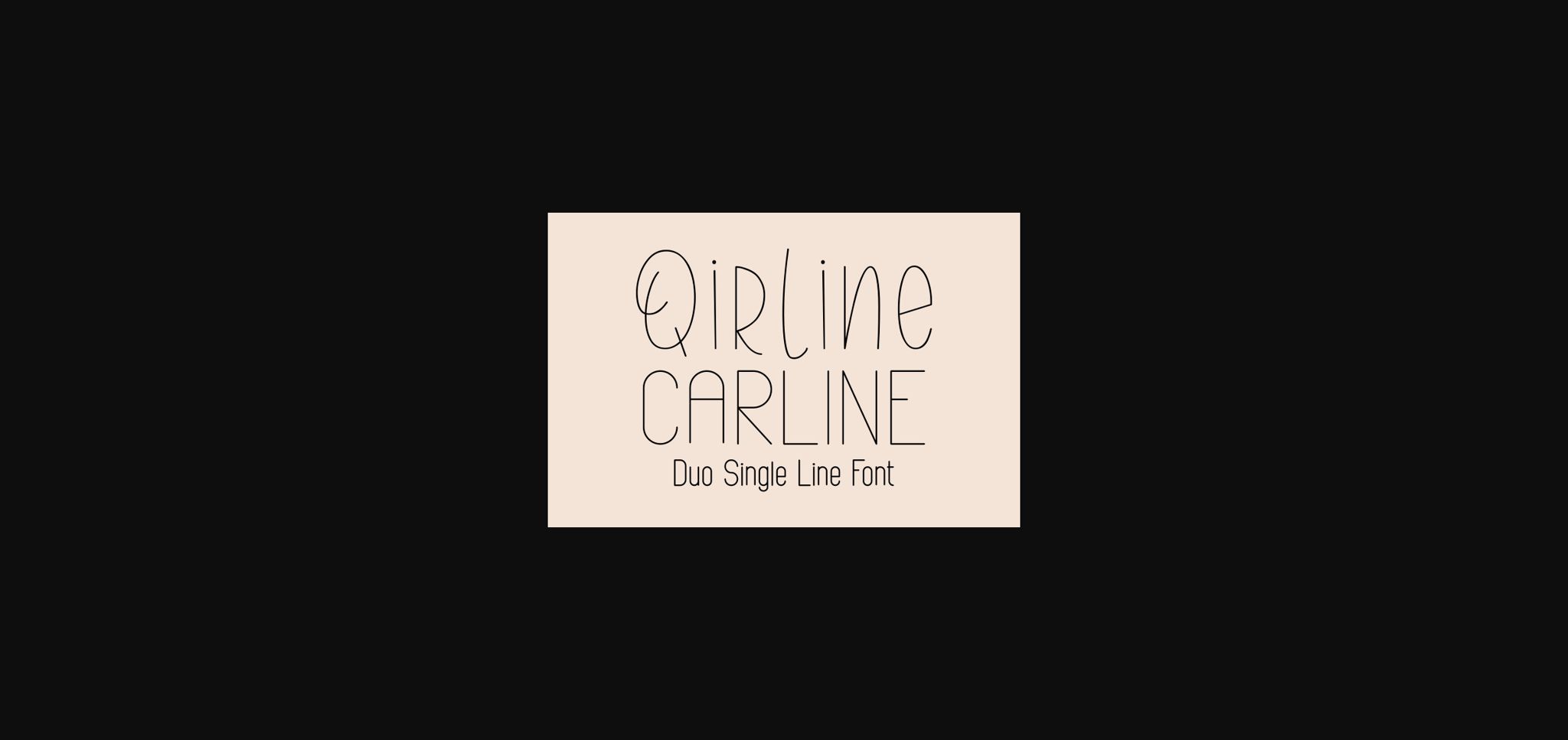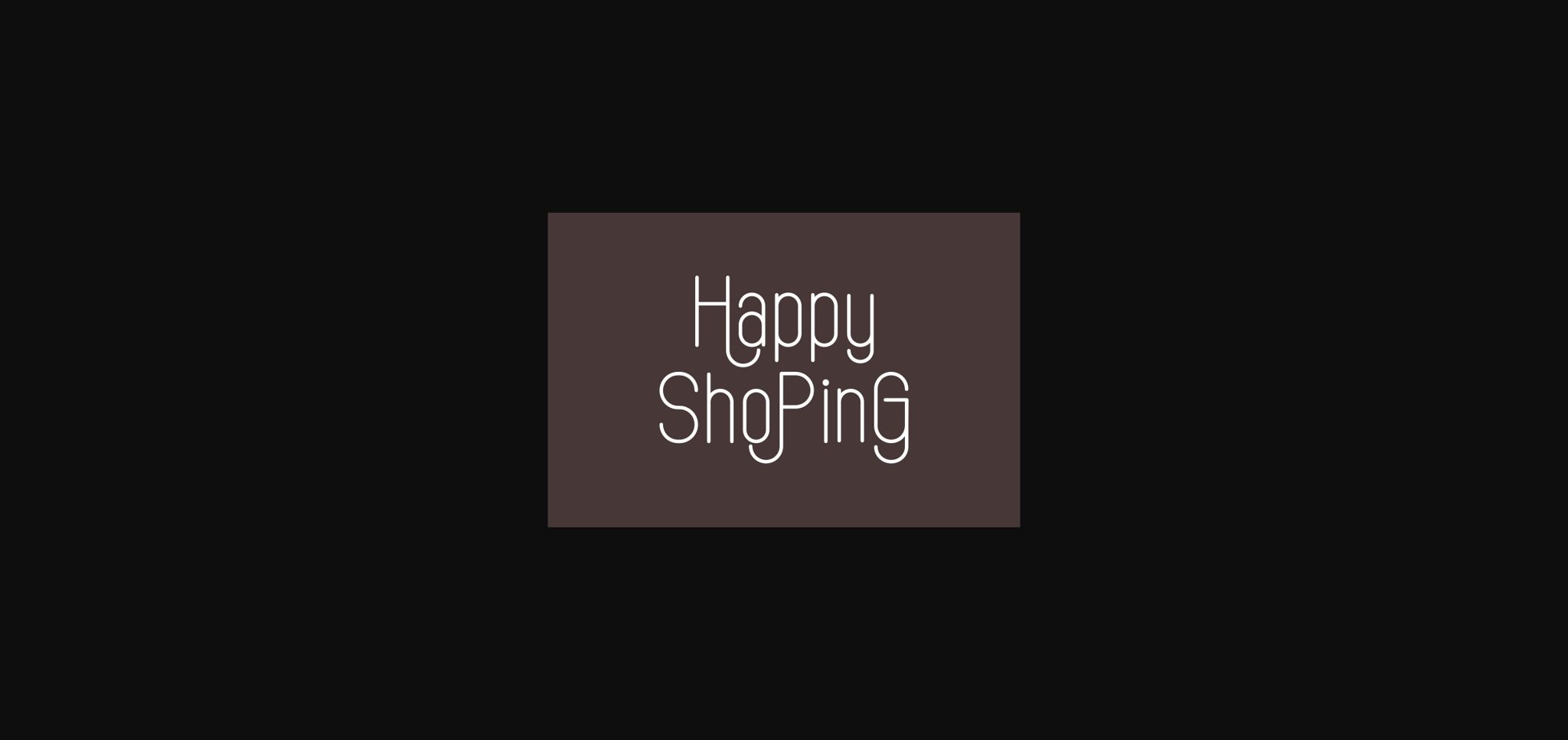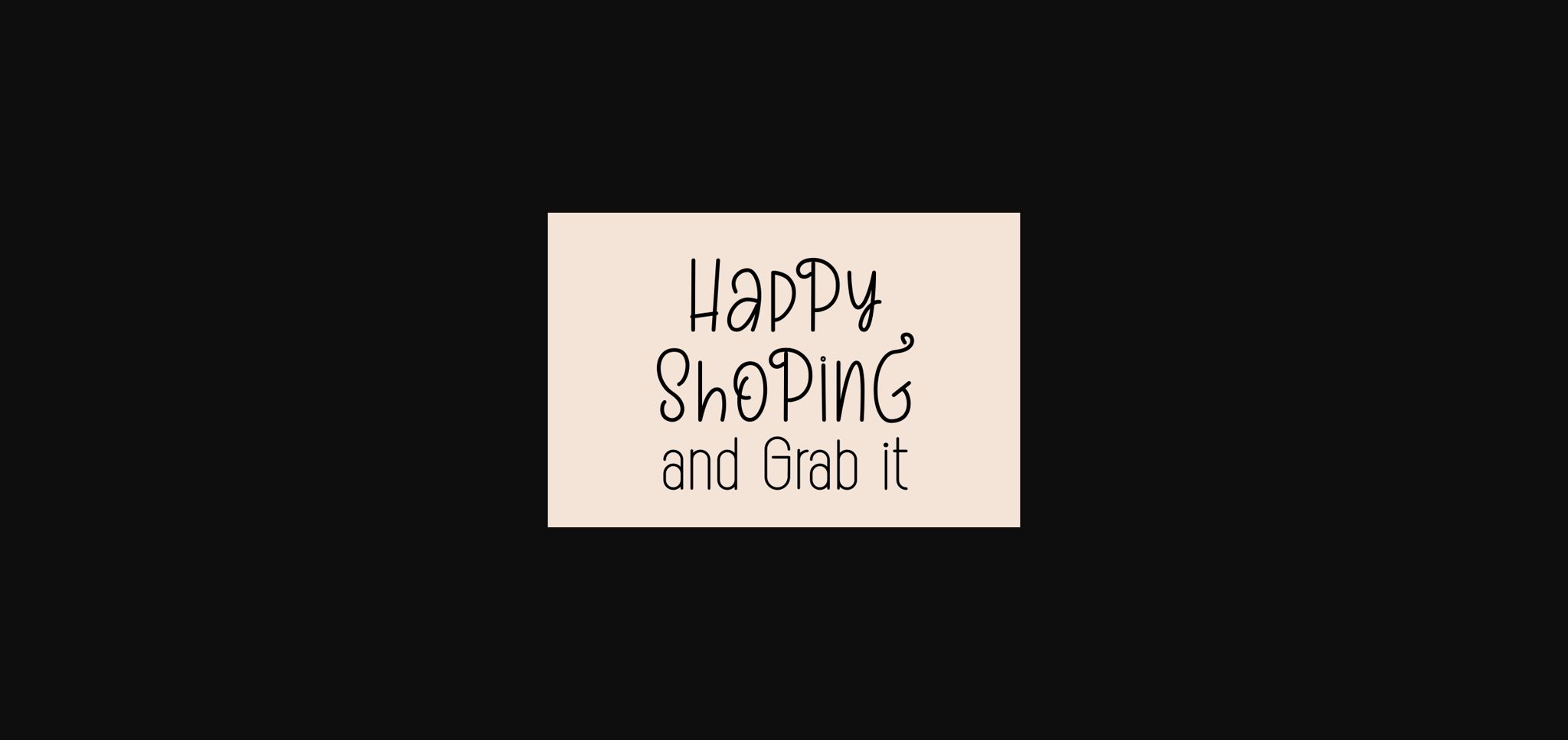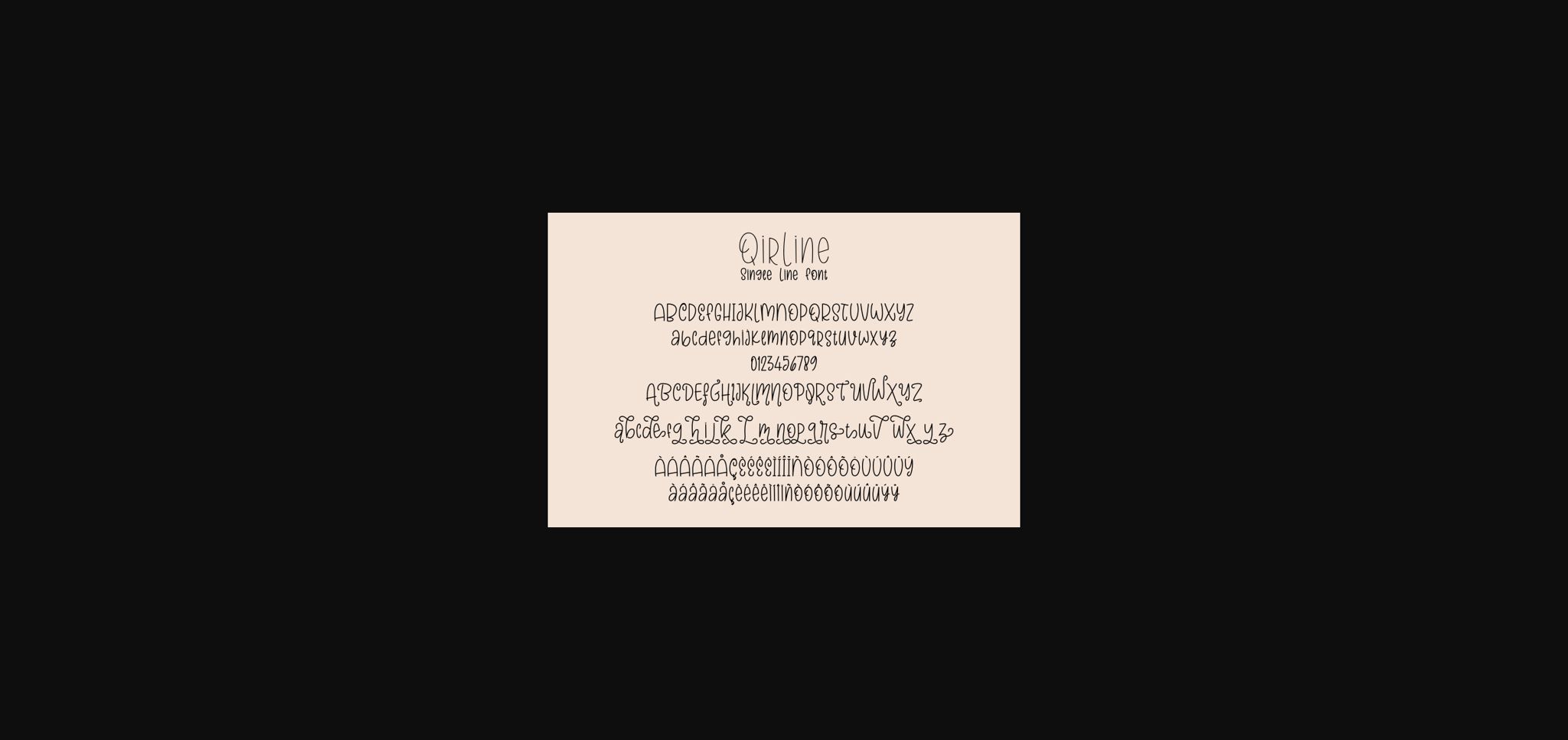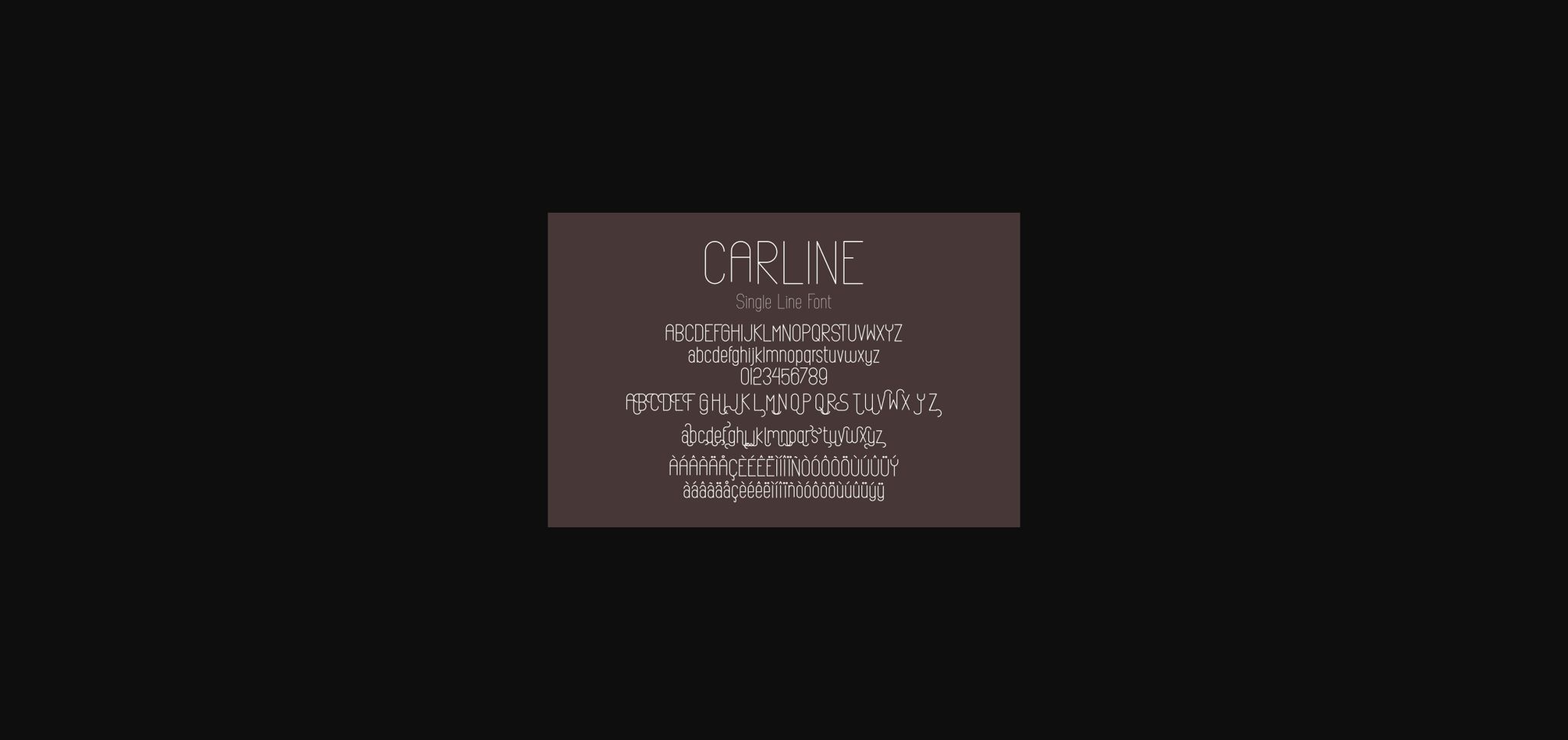
About Qirline & Carline Font
Qirline & Carline is an incredibly original sans serif font. It has a clean, thin and smooth vibe and it will be a hit for any design that you want to add it to.